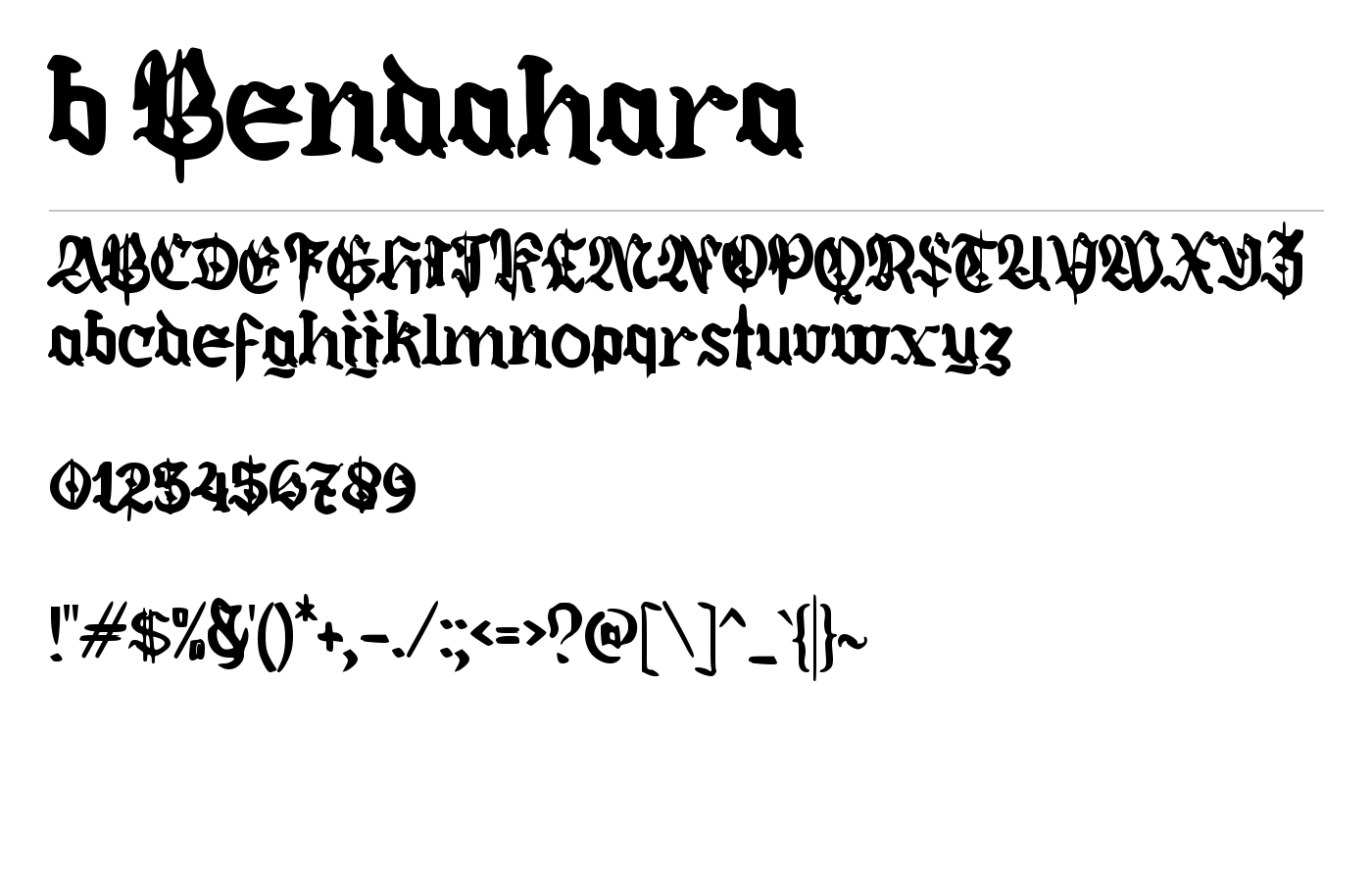
Bendahara is a bold, blackletter-style font with striking, heavy strokes and intricate, sharp edges that give it a distinctly vintage and gothic character. It features a full set of uppercase and lowercase letters with a historic, medieval feel, perfect for creating a dramatic and authoritative mood. This font works well for logos, posters, and branding where a strong, timeless, and somewhat traditional impact is desired.
b Bendahara Font
About b Bendahara Font